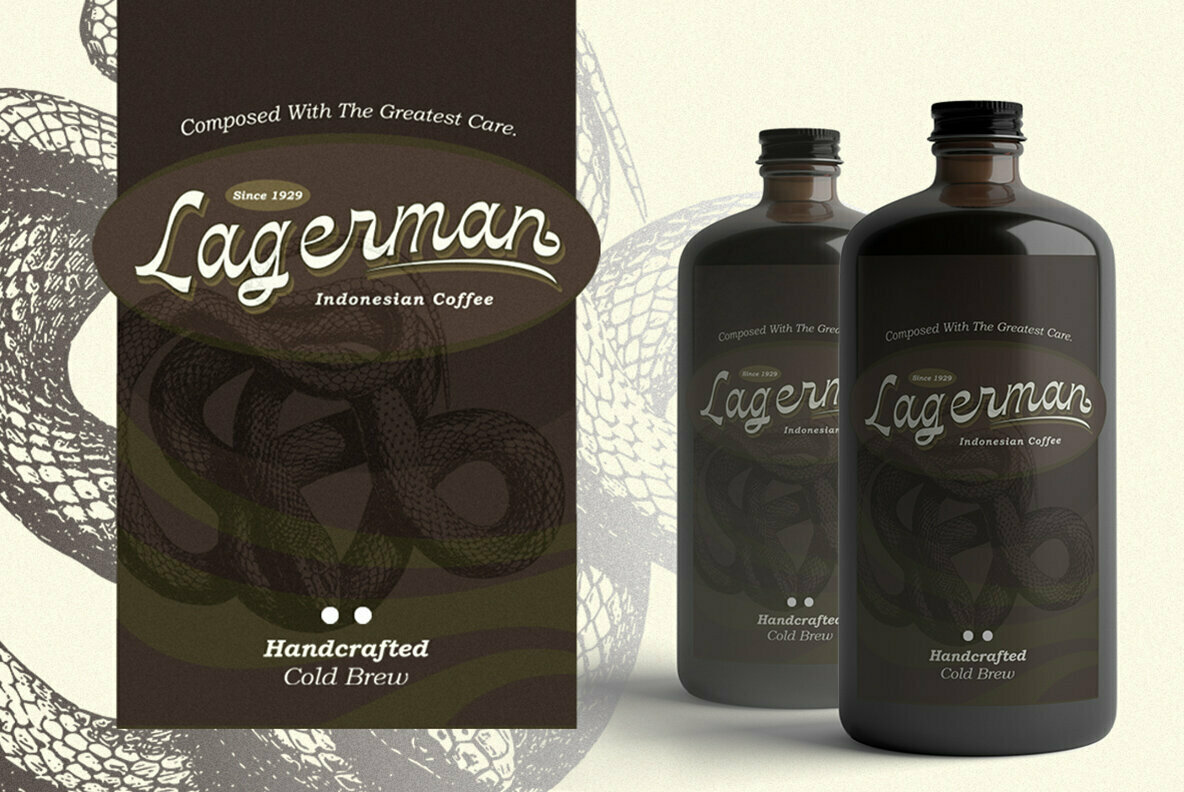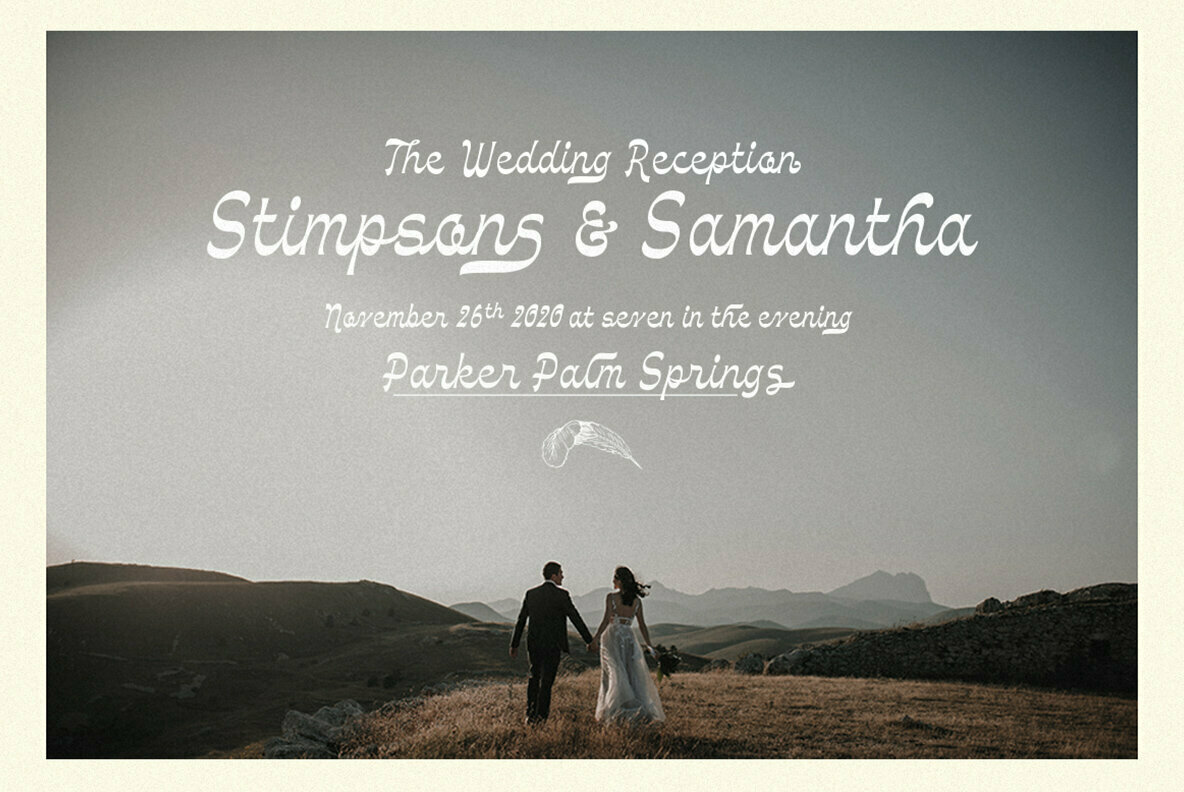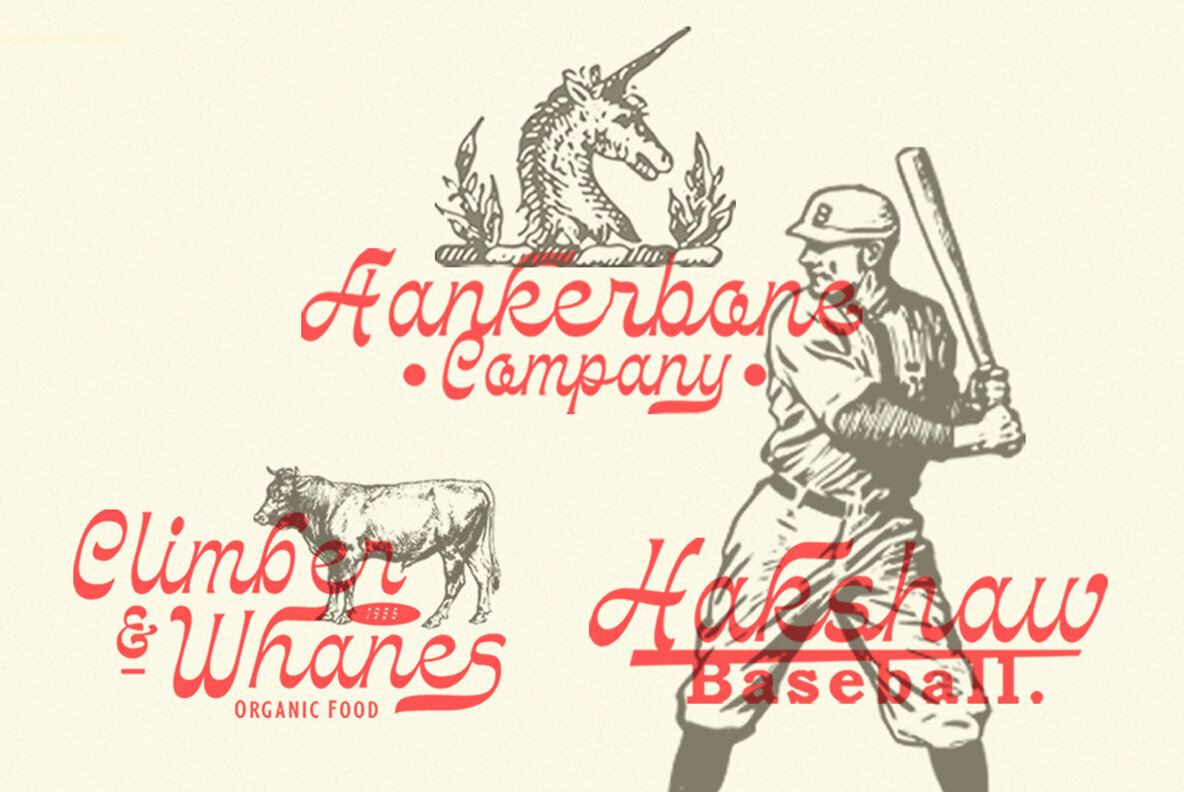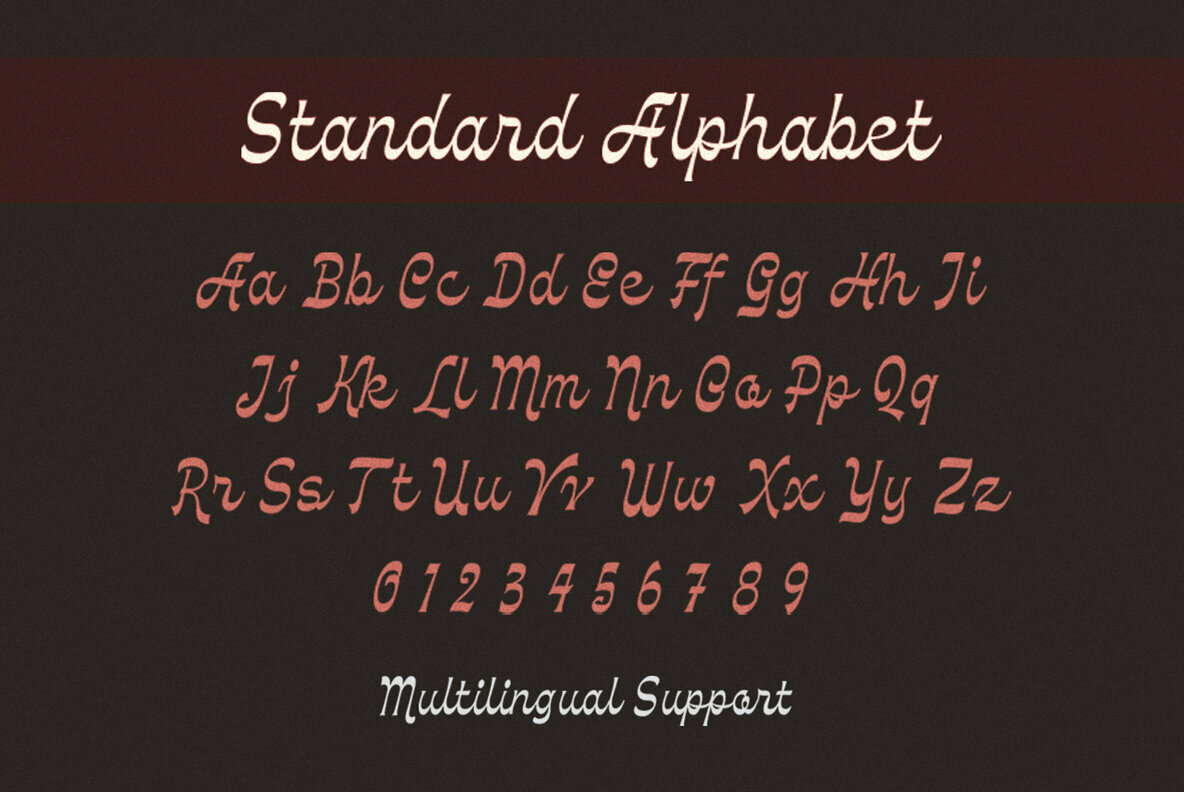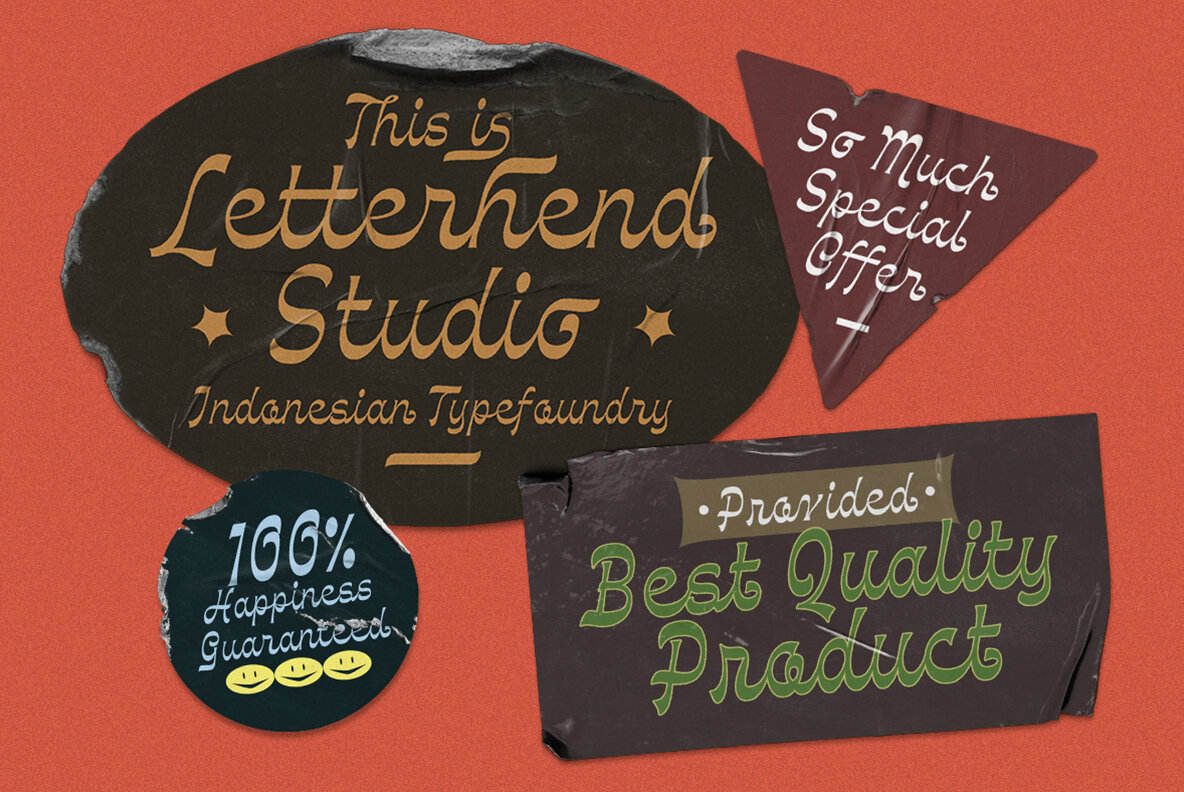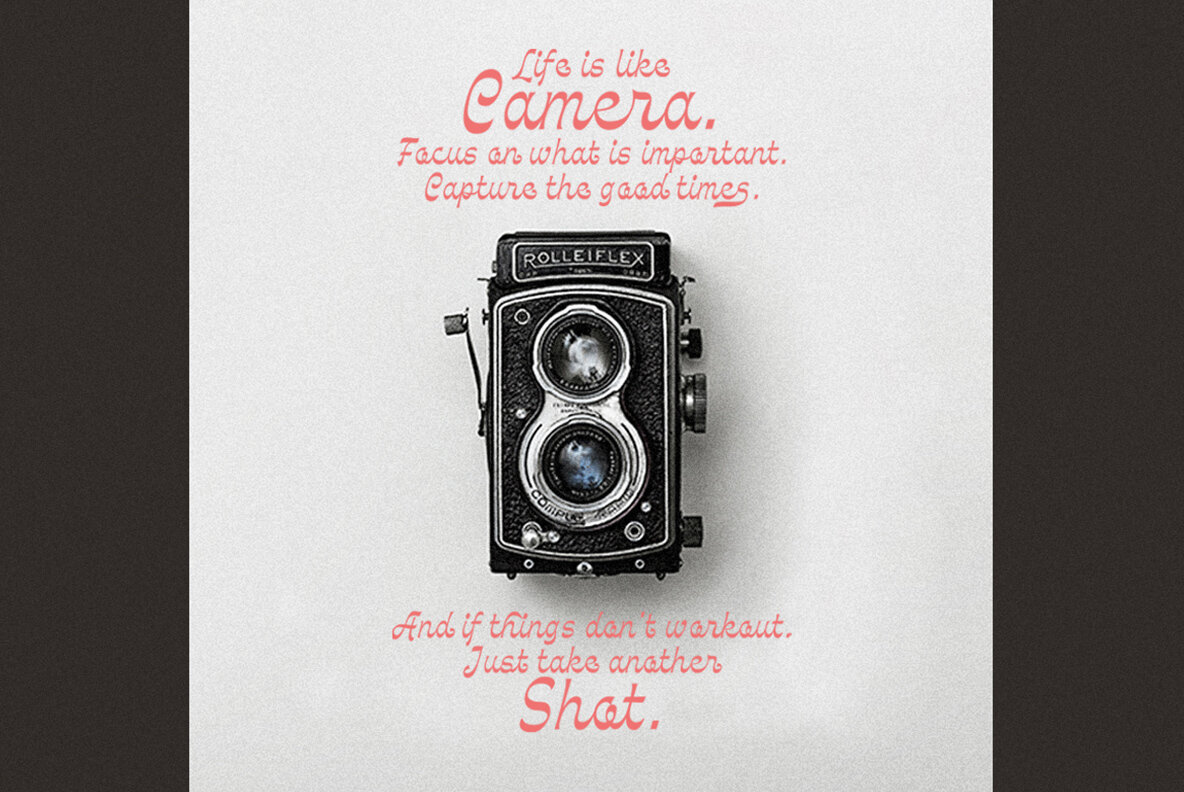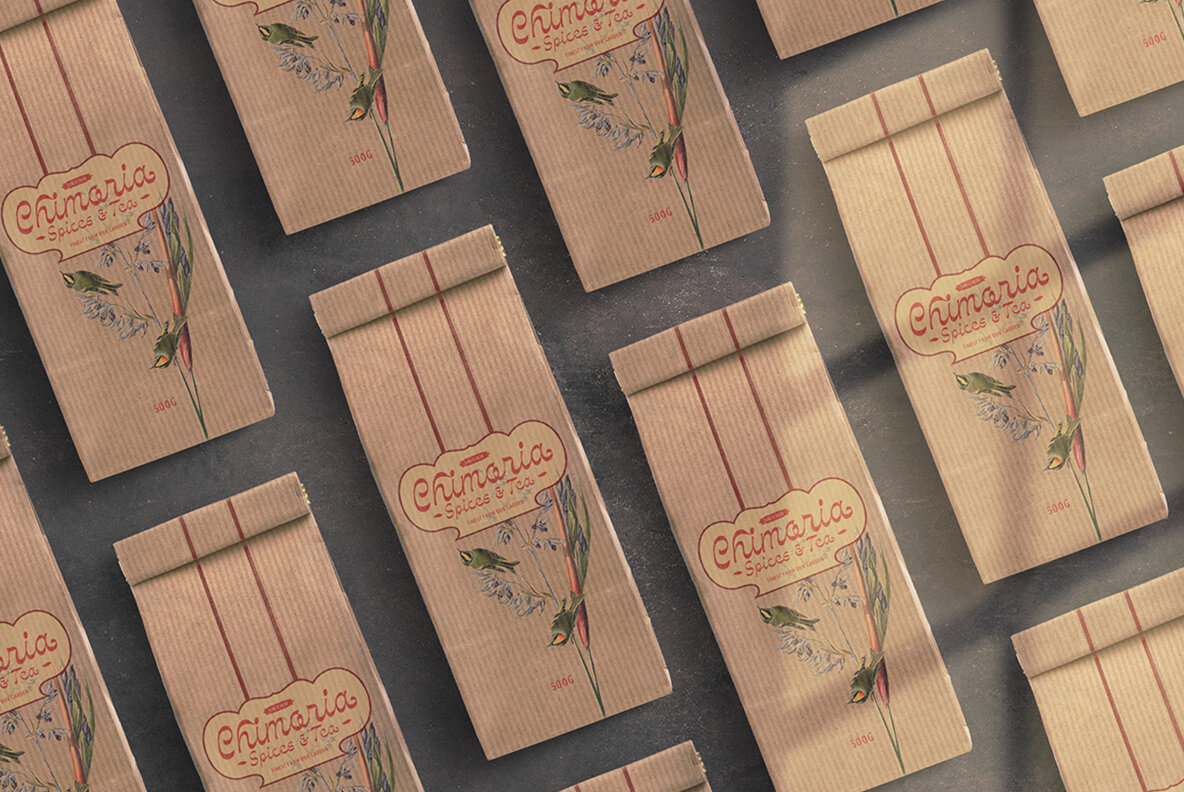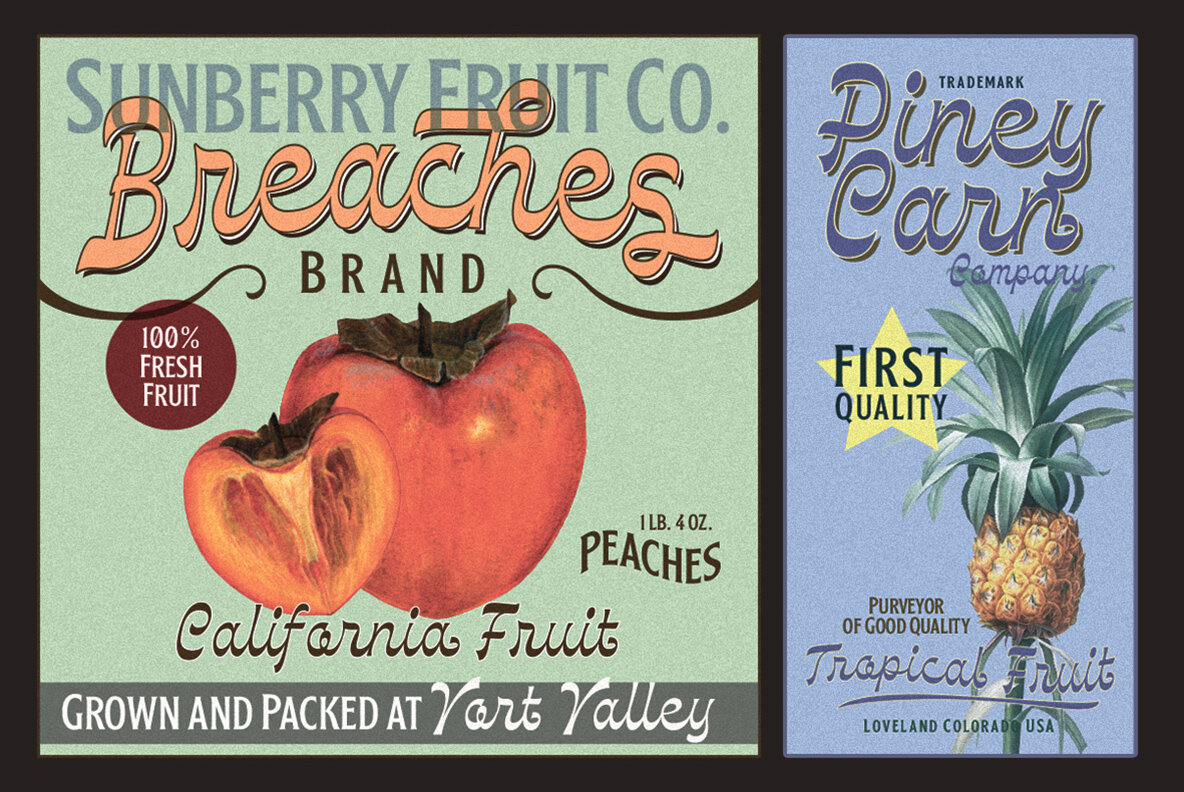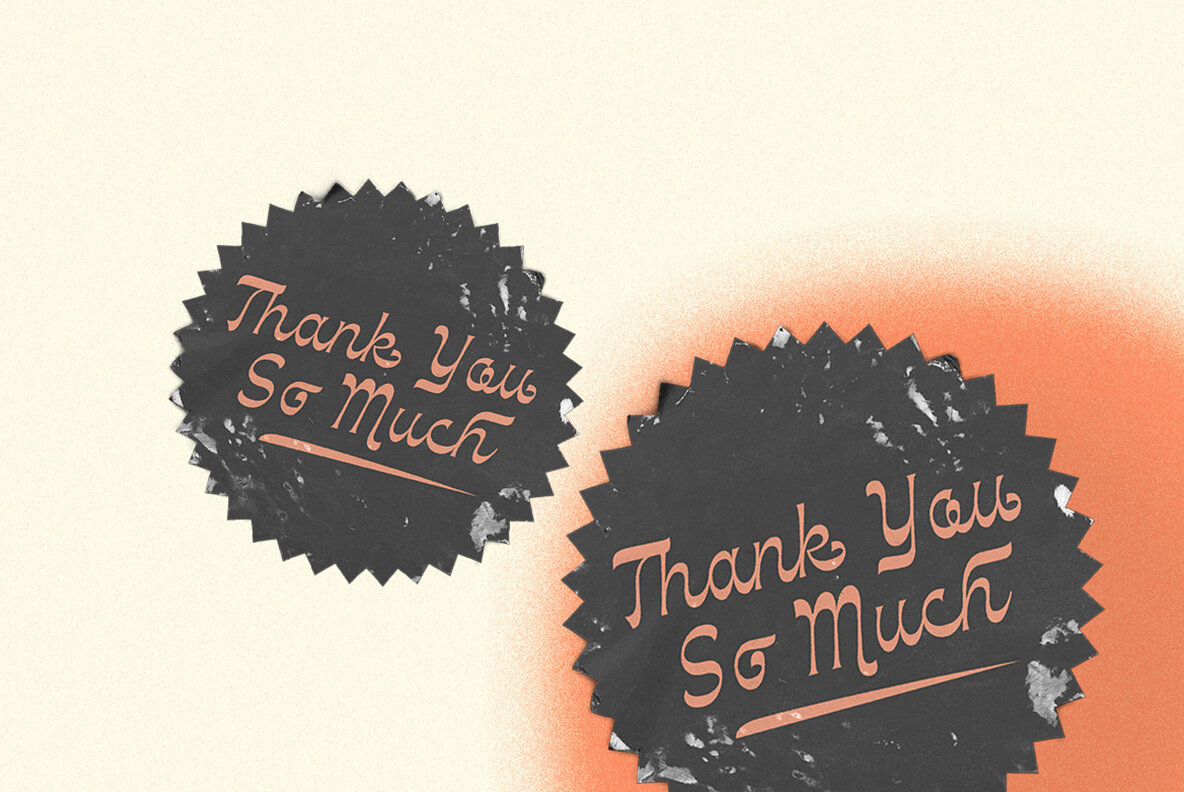
Achiever
Achiever offers a fresh take on display scripts with its distinctive reverse contrast feature, making it an unparalleled choice for creative projects. Designed with precision, it is especially impactful in branding elements such as logos and various formal designs. This typeface brings an extraordinary touch to your creative projects, seamlessly integrating into invitations, labels, magazines, books, greeting and wedding cards, packaging, fashion, and advertising.Achiever: Unique Display Script with Reverse Contrast
Perfectly suited for graphic design professionals seeking versatility, Achiever by Letterhend Studio is a compelling choice that adds a unique flair to any formal or creative project.